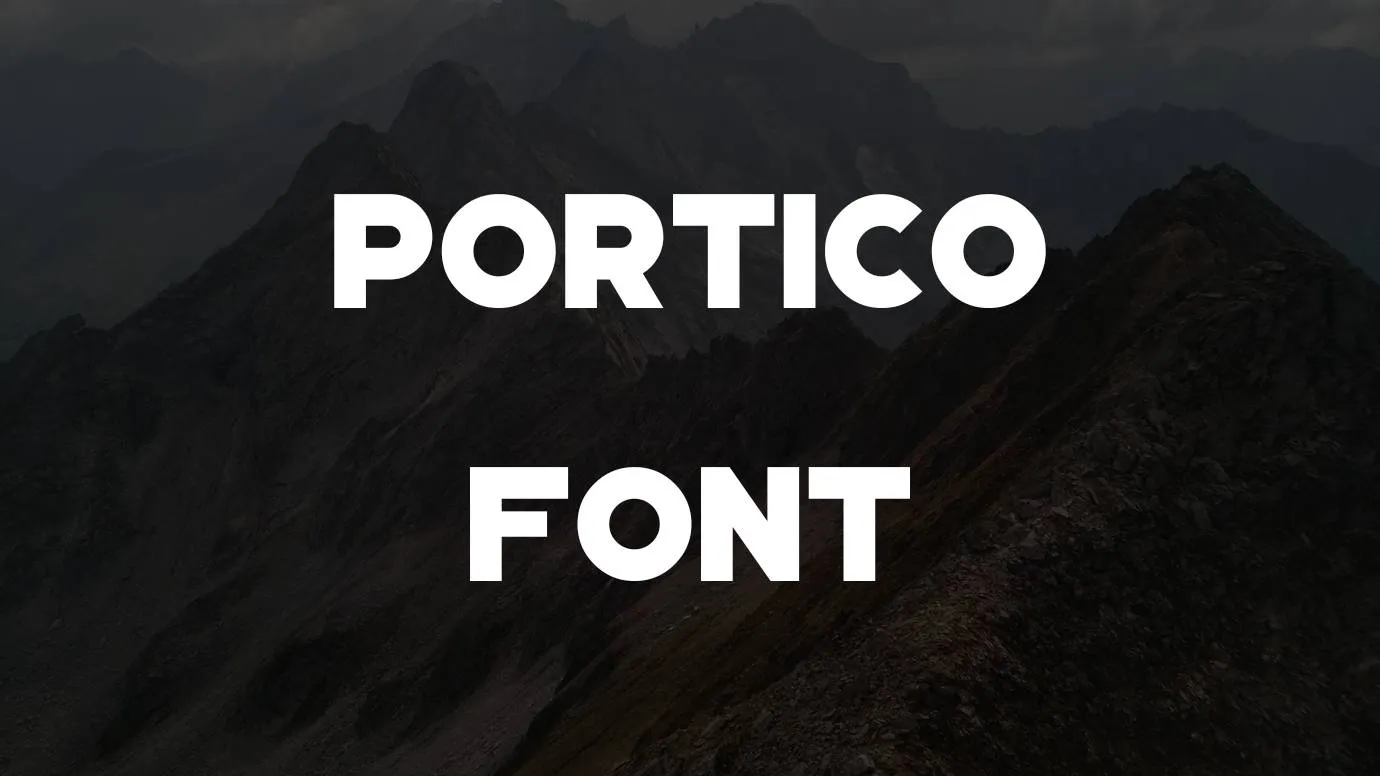
Portico Font Family
Portico Font Family comes in the sans serif family. Mehmet Reha Tugcu is the real and original designer of this classic typeface. This typography falls in the category of the sans serif family of fonts.
Portico Font